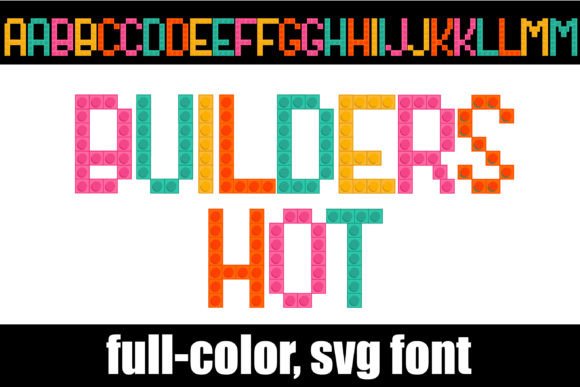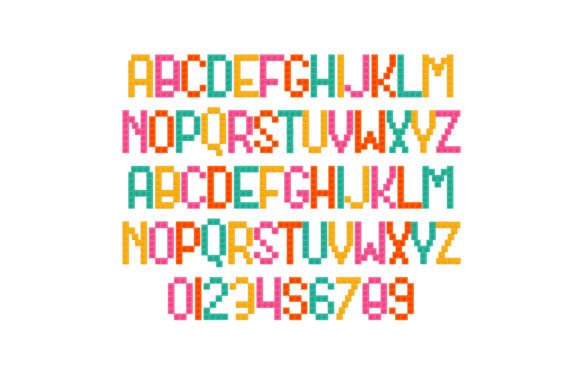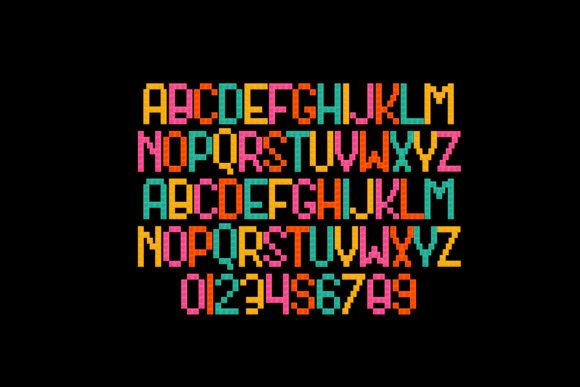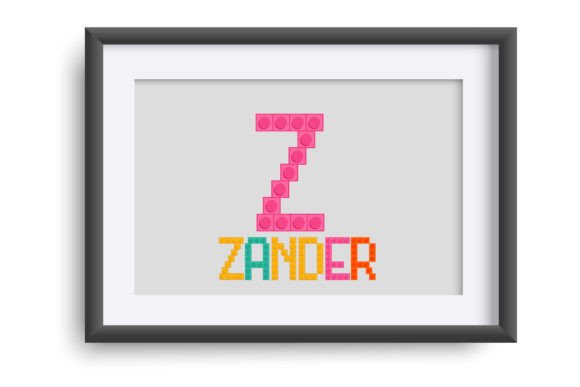
Builders Hot Font
About the Builders Hot Font
Get ready to be inspired by Builders Hot Font, a fresh and dynamic typeface for modern creators. This full-color font features a building block style font in a hot, summer color palette. There is an alt case w/ additional colors you can access through your system or Silhouette’s glyph map. This font works best for titles, displays, posters and more. Please note color fonts will show as black in non compatible programs. This font type is compatible with Silhouette Studio.